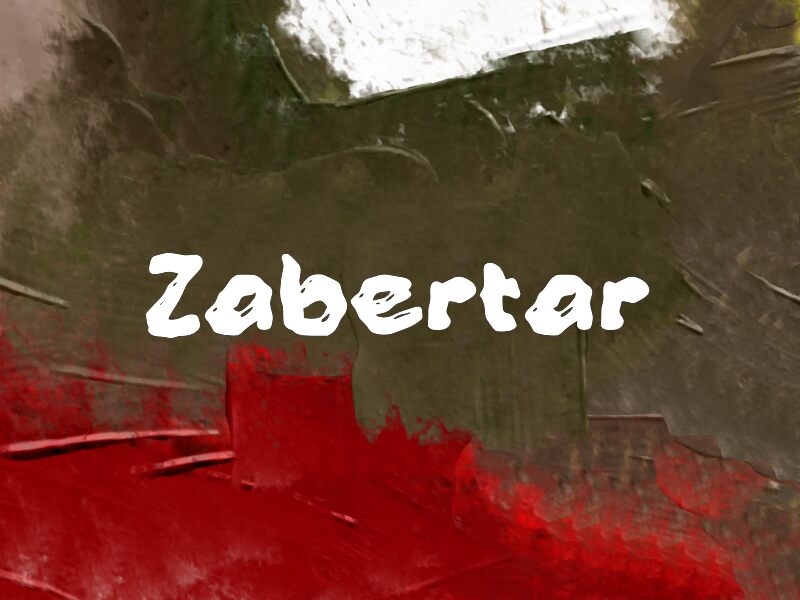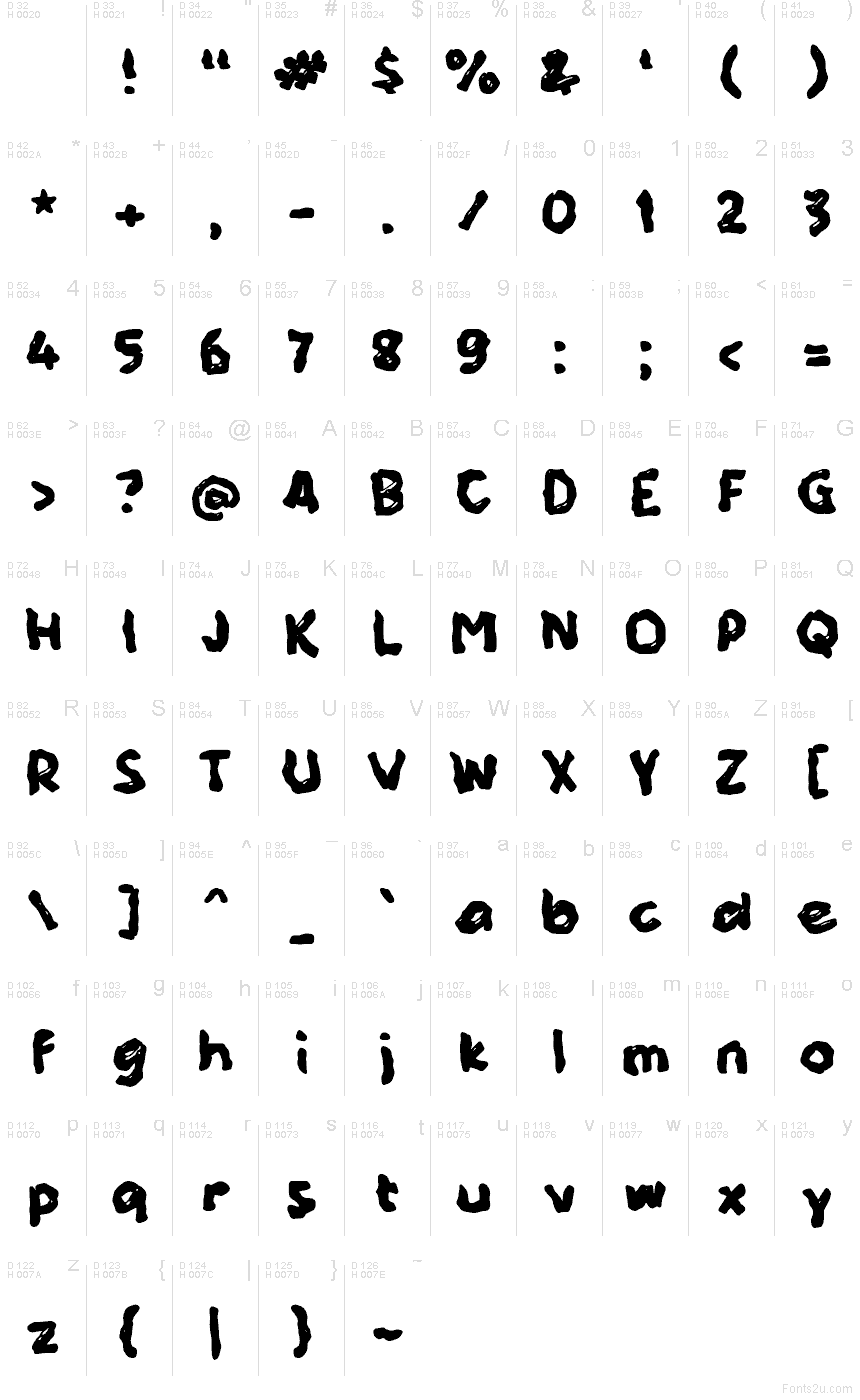
Zabertar
Zabertar font by wepfont.com is a free decorative display typeface that looks like it’s been hacked out of wet ink and splattered onto the page. Its chunky, irregular shapes and smeared edges feel raw and tactile, like messy brush strokes that never quite dried. The letters clump together with a loose, hand-drawn rhythm that instantly pushes designs toward the wild, loud, and slightly chaotic side.
Using Zabertar, you can crank up the energy on horror posters, zines, punk or metal band graphics, Halloween event branding, edgy streetwear logos, and game titles. This free font shines at large sizes where its inky texture can really show, while a clean, neutral sans serif in the subheads or body copy keeps everything readable and grounded.